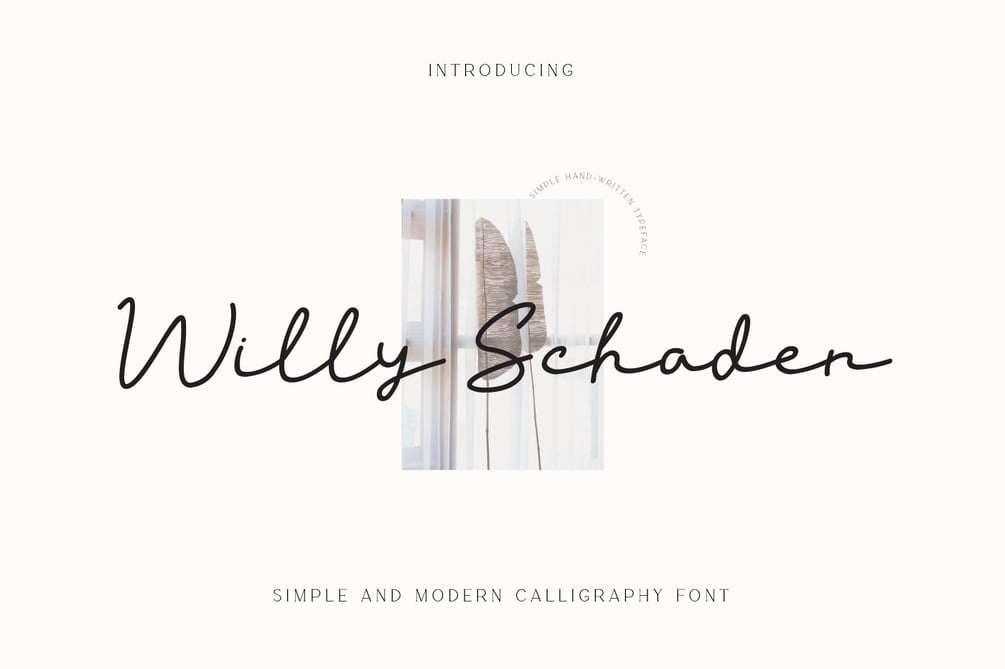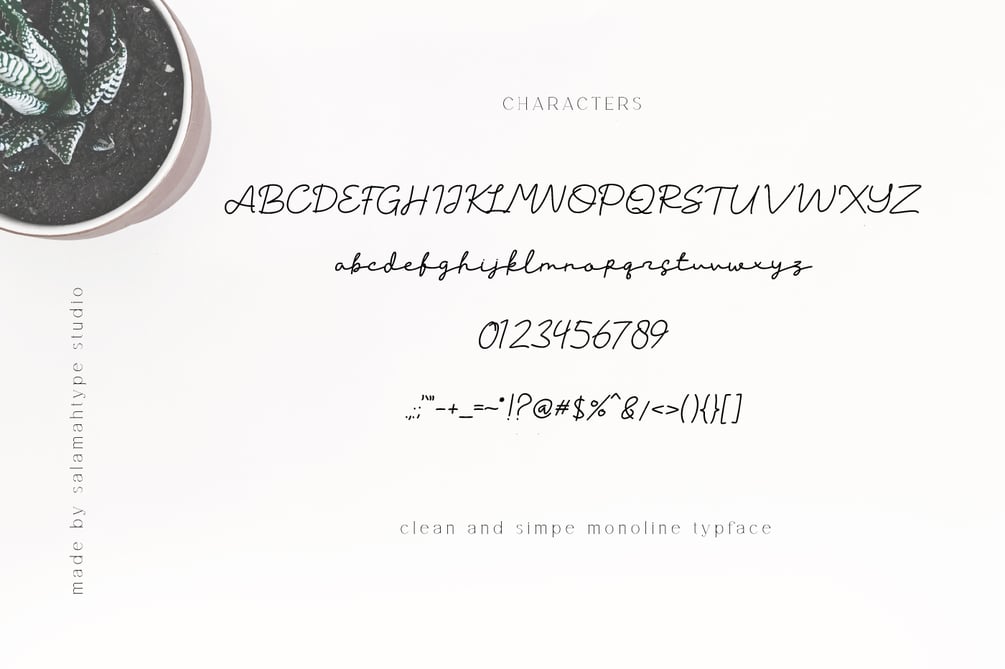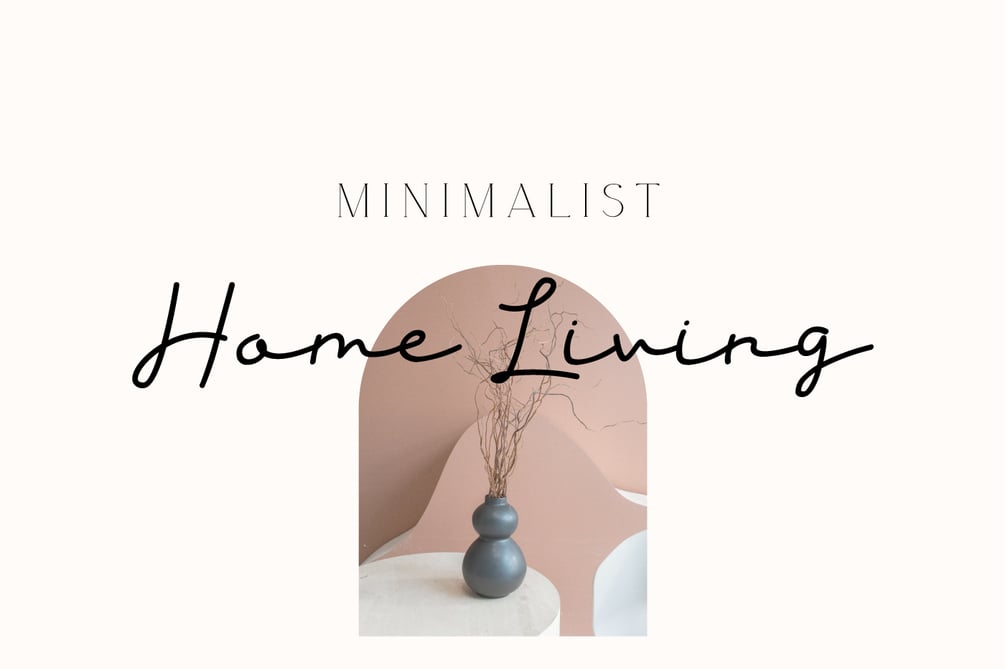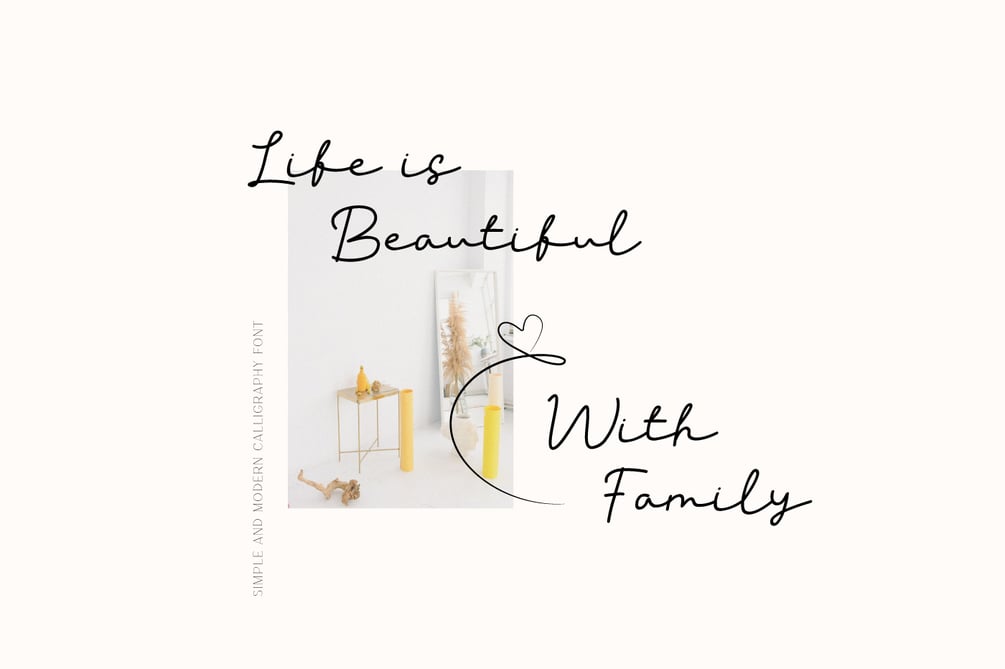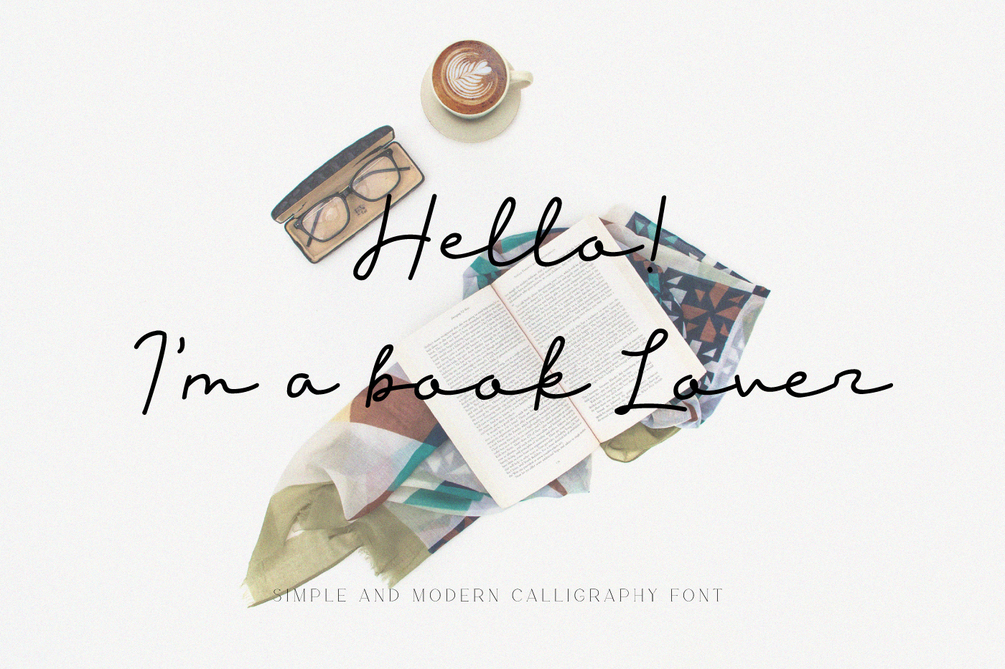
Willy Schaden - Smooth Script Font
Willy Schaden is a beautiful handwritten monoline script font. Great for wedding invitations or greeting cards, logos, branding materials, business cards, quotes, posters, Cricut, Canva, templett and more!
This font is very simple and ready to use without any special characters.